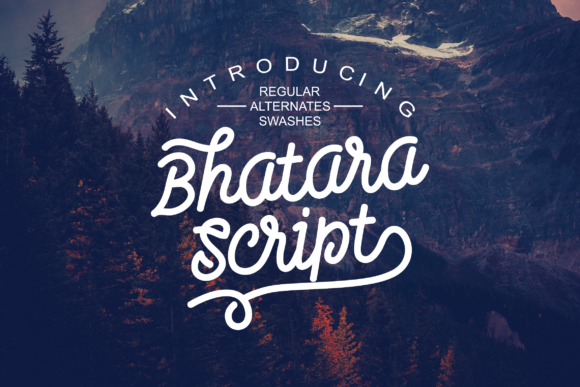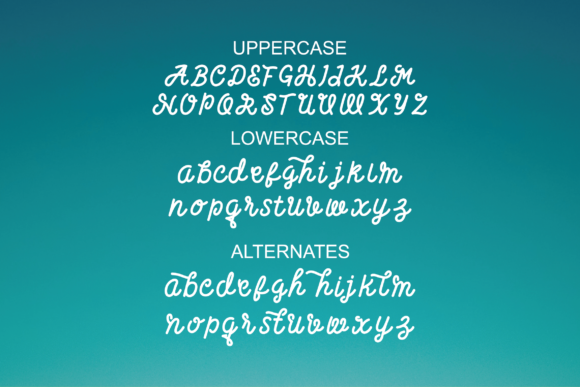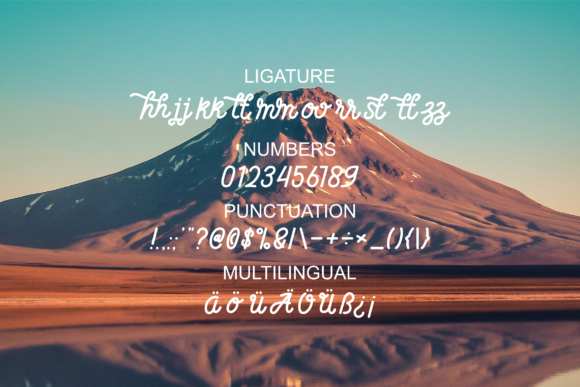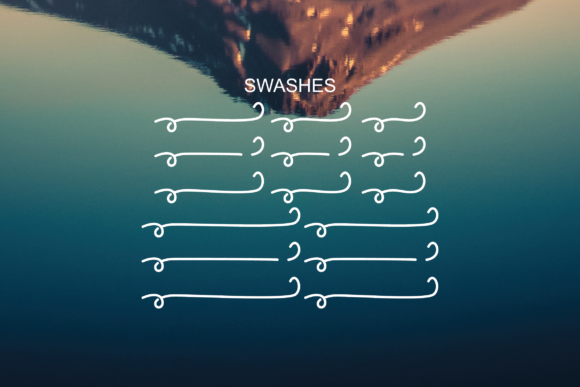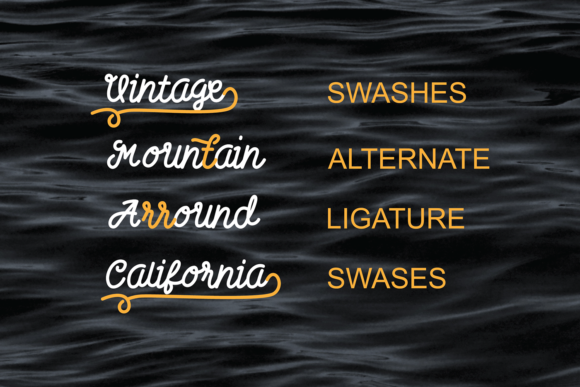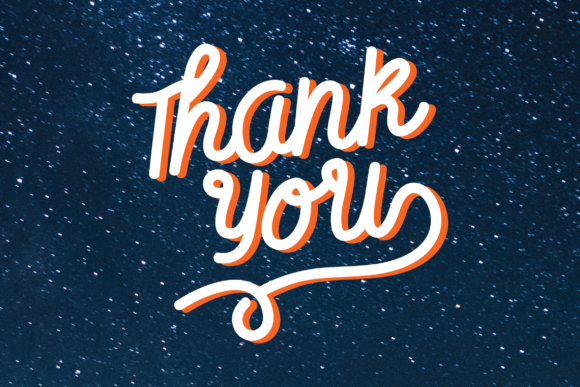
Bhatara Font
About Bhatara Font
The Bhatara is a very soft script font for anyone who likes a vintage style made by hand. It was made with love for traditional sign paintings and includes vintage styles that give a natural look with a sleek version.
It easily works together and is perfect for making traditional, vintage typography, labels, package designs, letters for t-shirts and many other logos.